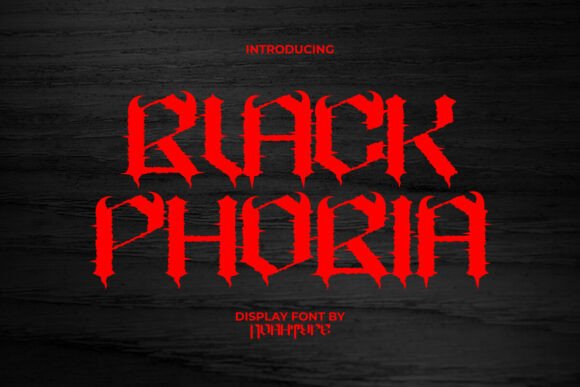
The Dark Side of Typography: Unleashing the Terror of Black Phobia Font
I’ll never forget the night I had to create a logo for a heavy metal band. The client wanted something that would make their fans’ skin crawl, something that embodied the raw energy and aggression of their music. As I scoured the internet for the perfect font, I stumbled upon Black Phobia – a terrifyingly effective typeface that would become my go-to for all things dark and sinister.
What Makes Black Phobia So Special?
Black Phobia is more than just a font – it’s an experience. Its razor-sharp, spiky serifs and heavily fragmented structure make every word look like a menacing, dark emblem. The extreme contrast and jagged, dagger-like terminals give it a visceral and aggressive presence that’s hard to ignore. Whether you’re designing a movie title, book cover, or video game logo, Black Phobia demands to be seen.
Here’s what I love about Black Phobia:
• ✨ Extremely versatile and adaptable to various design projects
• ✅ PUA encoding included for easy access to special characters and decorative elements
• 💥 Visually striking and attention-grabbing
• 👻 Perfect for horror and metal music genres
And here are some minor quirks to consider:
• 🤔 May not be suitable for body text or reading-heavy content due to its bold and distressed nature
• ⚠️ Some users may find the font’s intensity overwhelming or difficult to work with
The Inspiration Behind Black Phobia
Legend has it that Black Phobia was created by a mysterious designer who wanted to capture the raw energy and terror of the unknown. Inspired by the works of H.P. Lovecraft and Edgar Allan Poe, this designer poured their heart and soul into crafting a font that would evoke fear and unease in those who saw it.
What is the best way to use Black Phobia in a design project? Use Black Phobia as a display font to grab attention and convey a sense of danger or intensity. Pair it with a clean, sans-serif font for body text to create visual contrast.
Is Black Phobia suitable for body text or reading-heavy content? No, Black Phobia is not recommended for body text or reading-heavy content due to its bold and distressed nature. It’s best used as a display font to add emphasis and visual interest.